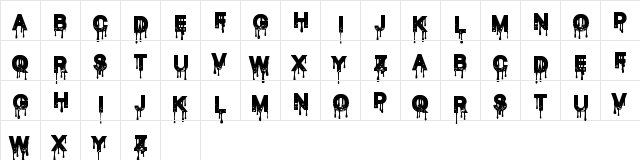
Blood Thirst Regular
Design Context for Blood Thirst Typeface
Blood Thirst carries an unsettling edge — its distorted letterforms are built to unsettle, perfectly suited to horror, Halloween, and dark creative work.
Ideal for Halloween projects, horror film titles, haunted house signage, and dark editorial design.
Font Pairing: Pair with a clean neutral sans-serif for body copy to let Blood Thirst's character lead without overwhelming the composition.
Pro Tip: Blood Thirst works best as a headline or focal element. Pair it against plain, neutral body text to amplify the contrast.